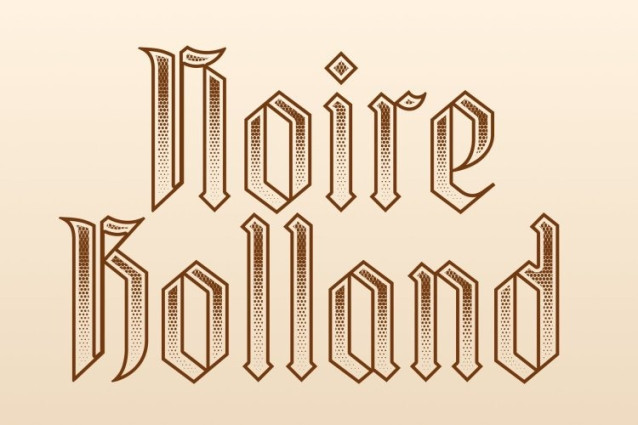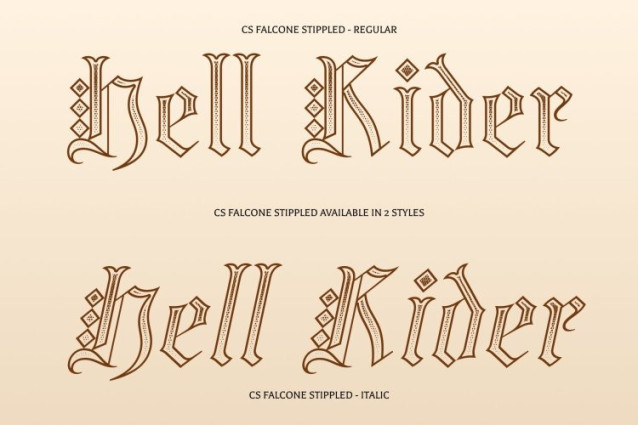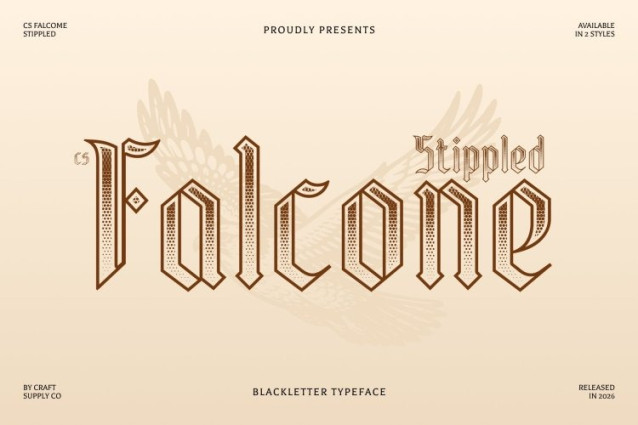
CS Falcone Stippled Font
CS Falcone Stippled Font – This is a striking Gothic display font that captures the dramatic spirit of medieval design. Defined by dark, bold characteristics, sharp letterforms, and strong vertical emphasis, this font creates a powerful and commanding visual impact. The addition of a stippled texture introduces a subtle dotted surface across the letters, adding depth and a handcrafted aesthetic that enhances its historic and atmospheric character.
Medieval Inspiration with Dramatic Form
Drawing inspiration from Gothic cathedrals and medieval calligraphy, this font features strong angles, pointed details, and decorative elements that evoke the grandeur of the Gothic era. The textured stippled finish further enriches the design, giving the font a slightly aged and artistic feel while maintaining its bold structural presence.
Perfect for Dark and Powerful Visual Themes
With its dramatic structure and gothic influence, this is ideal for projects that aim to convey mystery, intensity, and historical depth. The bold forms and textured surface work together to create a visually compelling typeface that instantly commands attention.
Versatile for Bold Creative Applications
This font works beautifully for horror movie posters, metal band logos, album artwork, event promotions, branding, and experimental design projects. Its fusion of gothic heritage and stippled texture delivers a distinctive aesthetic that feels both timeless and visually impactful.